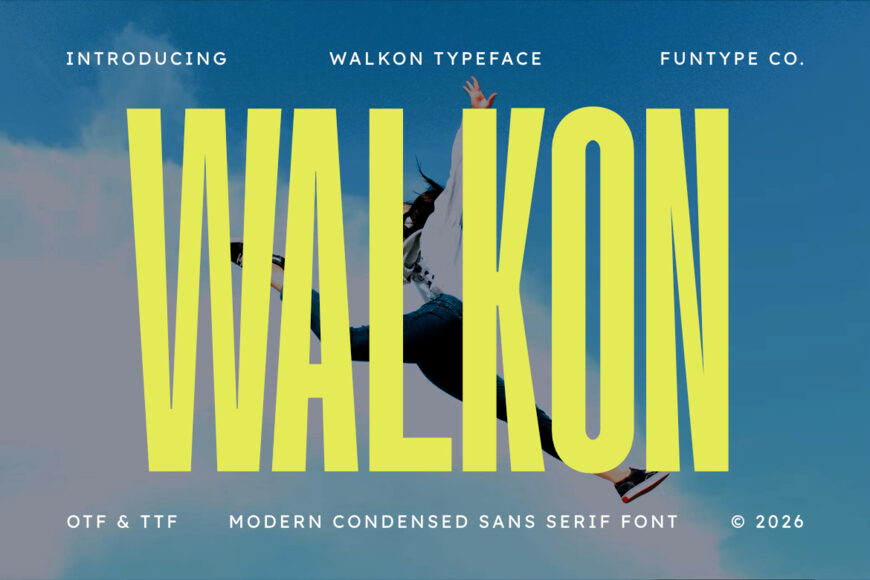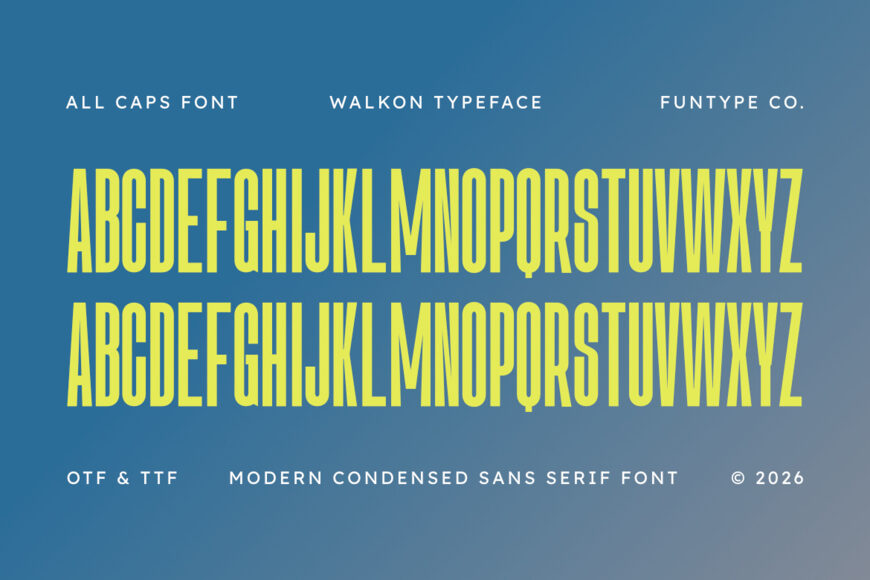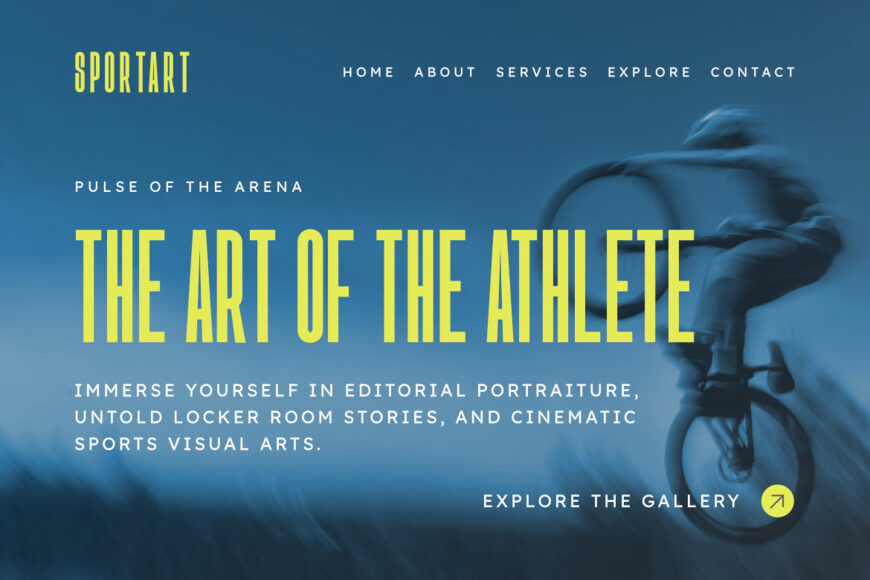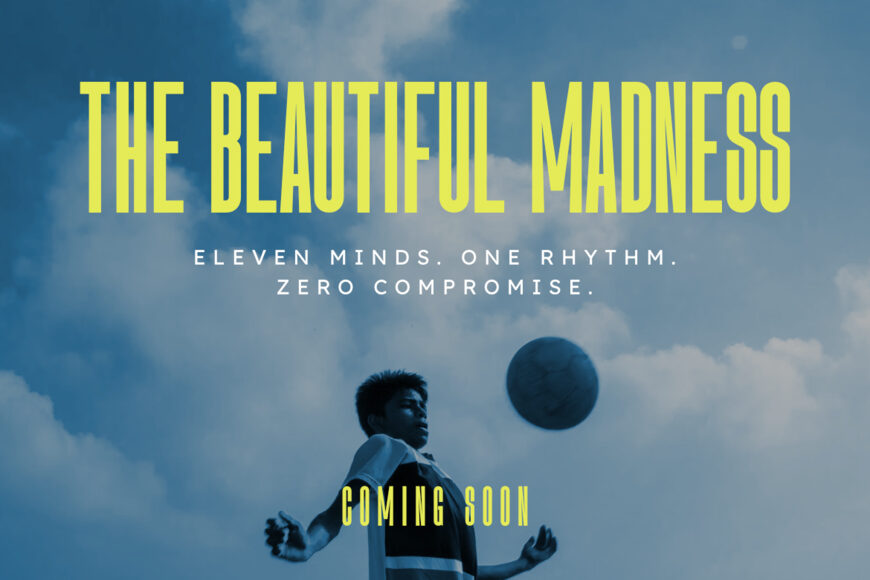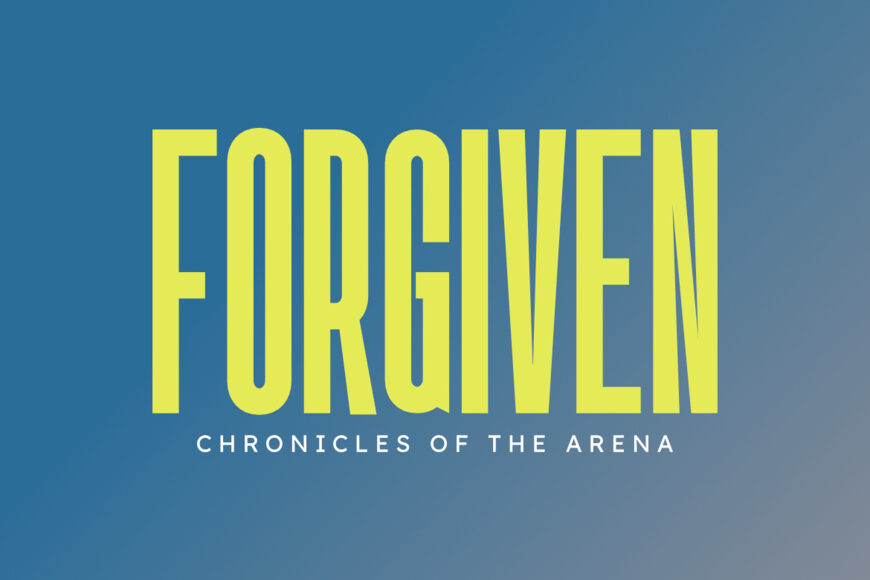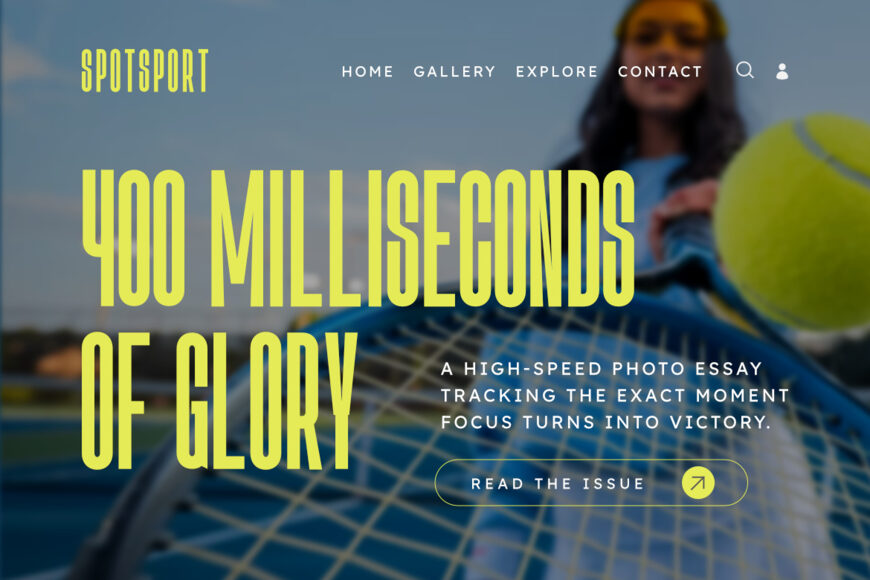
Walkon is a vibrant, high-energy, and modern condensed sans serif font, engineered to bring a youthful dynamic presence, ultra-tall space-saving geometry, and an expressive display aesthetic to contemporary graphic layouts.
Featuring an elongated vertical profile, bold neon-style proportions, and subtle angled stroke details, Walkon introduces an energetic outdoor event identity, extreme sports promotion, youth lifestyle editorial layout, and prominent digital media presentation designed to claim absolute visual focus.